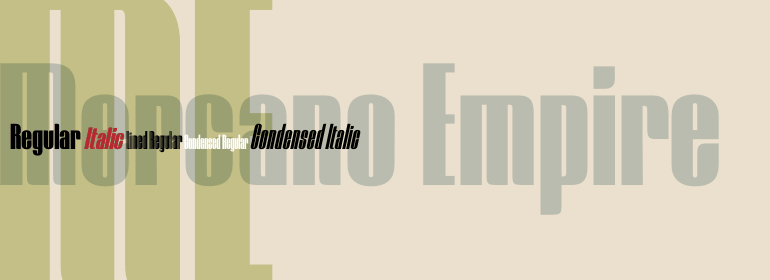
Mercano Empire
Font Family by Device
Mercano Empire is a two-style sans serif family from Device with a distinctly retro, high-energy feel. Its look pulls from groovy late-’60s and ’70s lettering, then carries that spirit into an ’80s new wave mood, giving display text a bold, stylized presence.
With Regular and Italic styles included, it gives you a compact set for shaping headlines, poster typography, album-inspired graphics, branding, packaging, and other statement-making display work. If you want a sans serif that feels vintage without reading as plain or neutral, this family brings character right away.